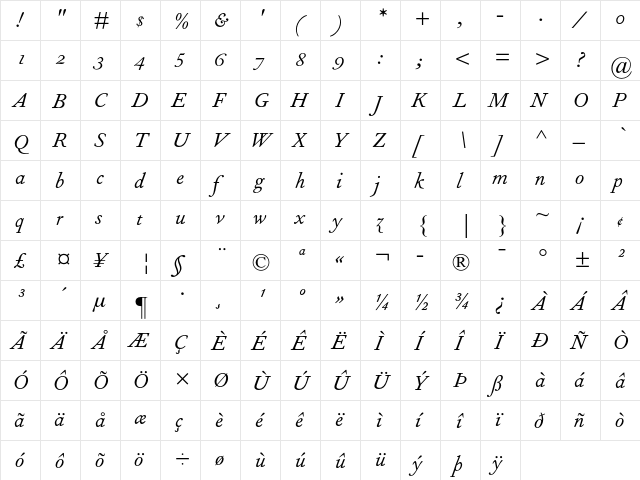
Fournier MT Italic OsF
Design Context for Fournier MT Typeface
Fournier MT takes a measured approach to typography — its balanced proportions and neutral character make it a reliable workhorse for both digital and print work. The dynamic lean of this cut emphasises speed and emphasis in any layout.
Pro Tip: Try Fournier MT for annotation and caption copy alongside an upright companion — the contrast in angle creates a dynamic but ordered typographic system.